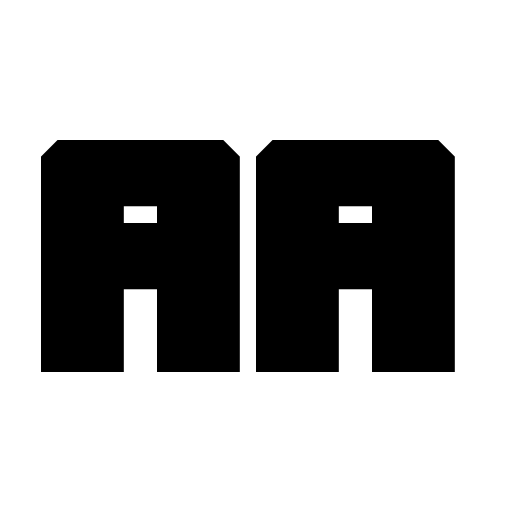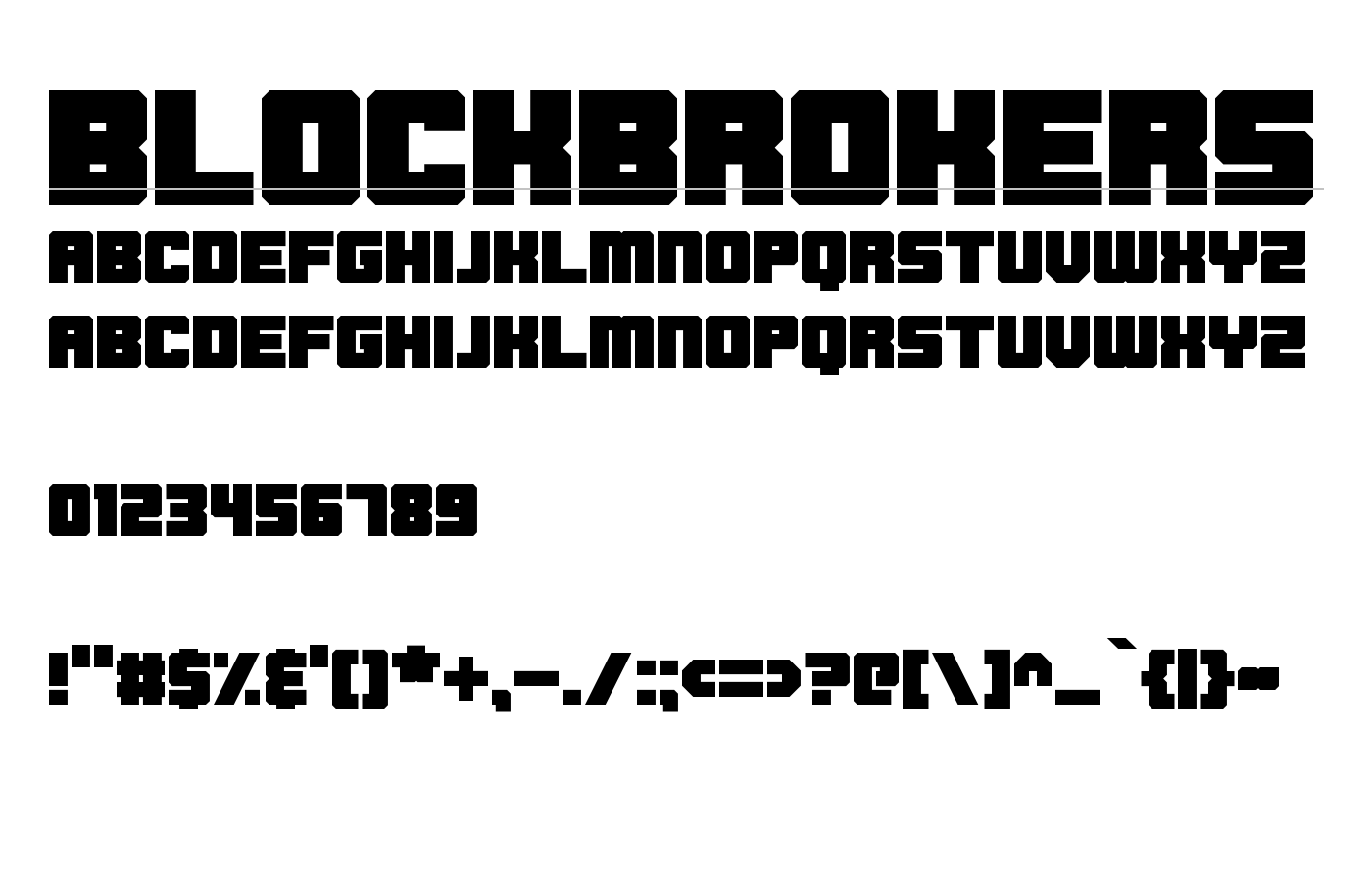
Blockbrokers is a bold, geometric sans serif font with a strong, blocky appearance that commands attention. Its sturdy, squared shapes and uniform stroke widths give it a modern, industrial feel, making it ideal for impactful headlines, logos, and branding that need to convey strength and confidence. This font works best in display settings where its heavyweight style can strongly define a design’s character.
Blockbrokers Font
About Blockbrokers Font